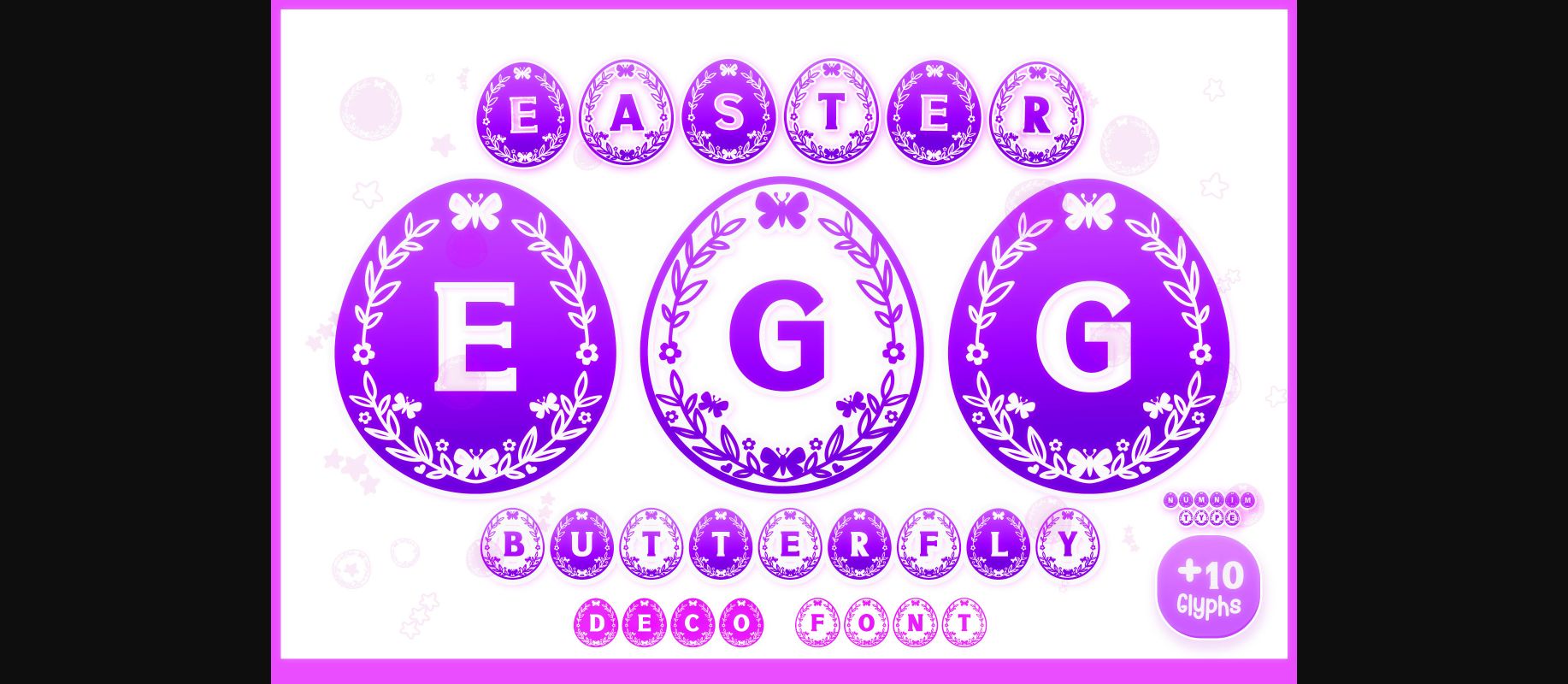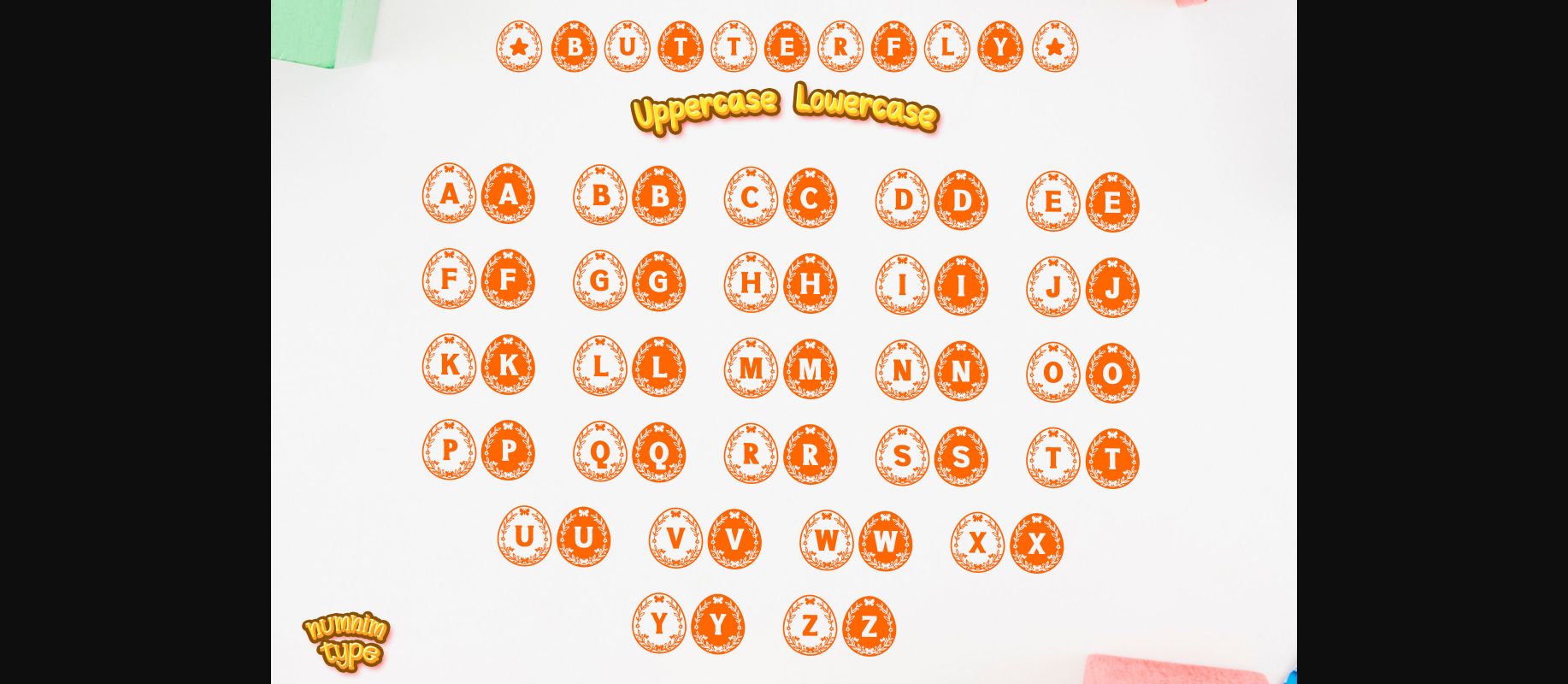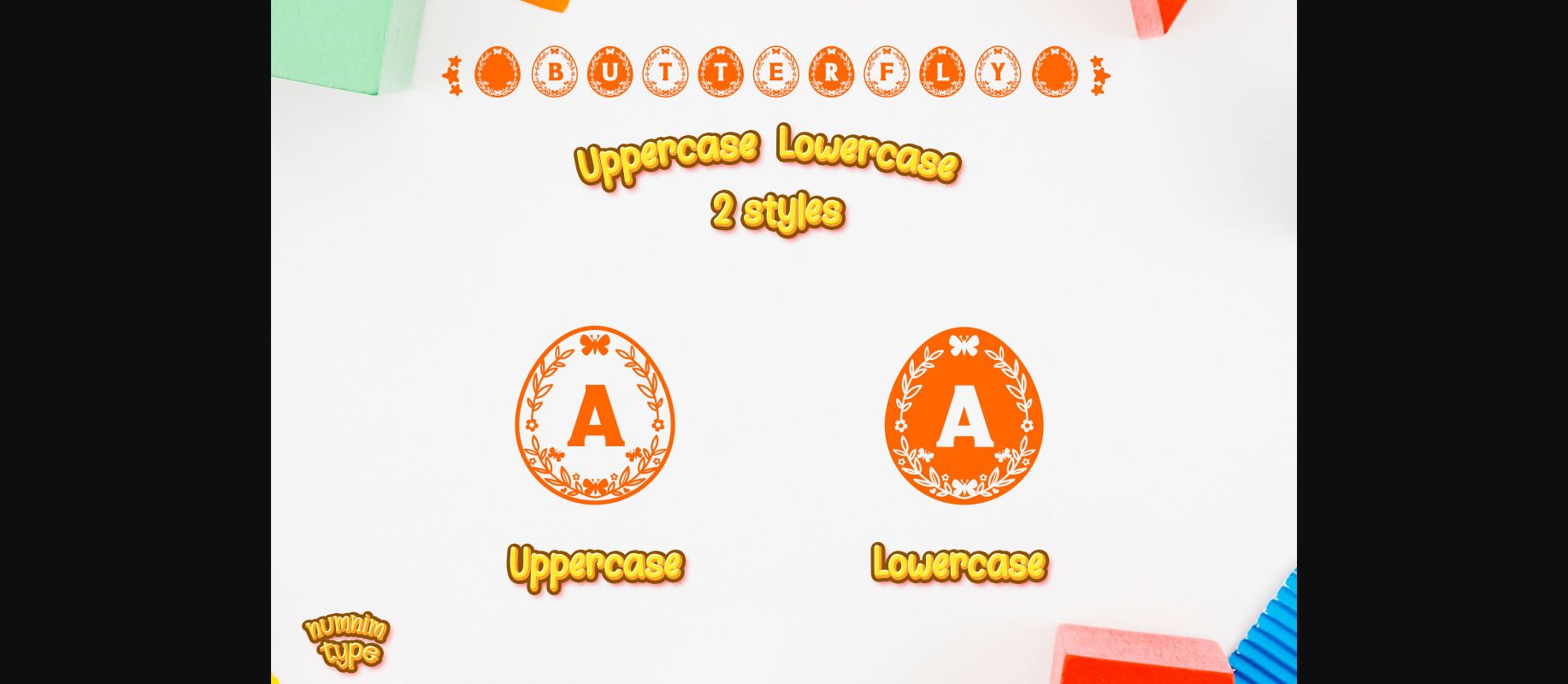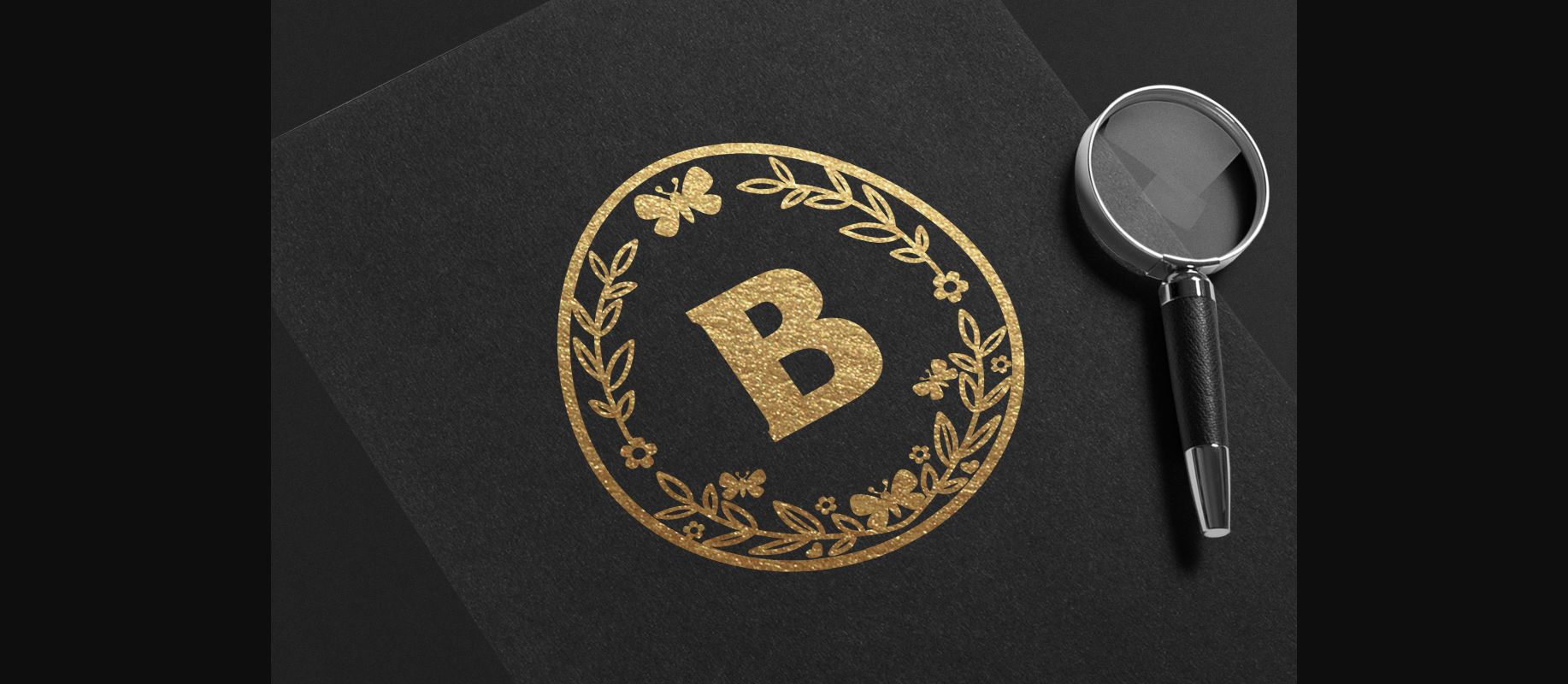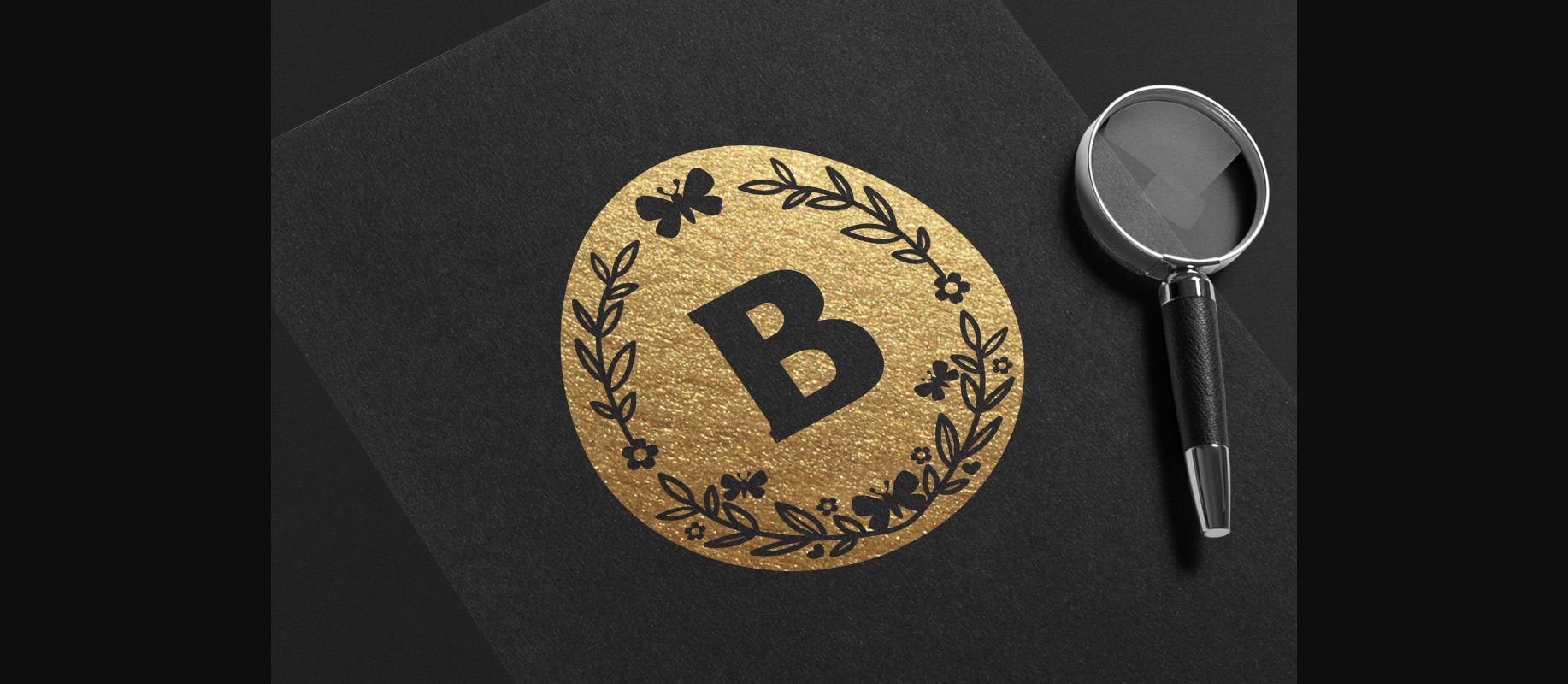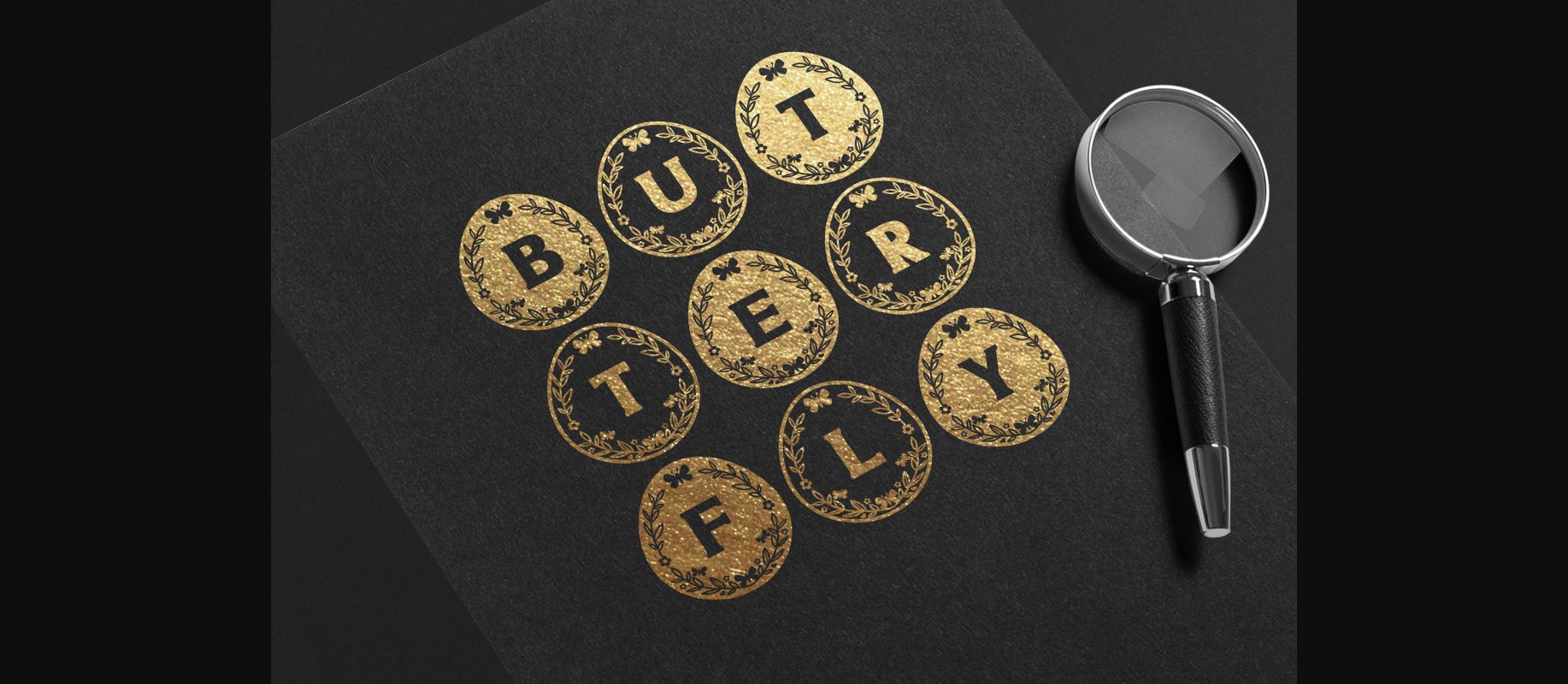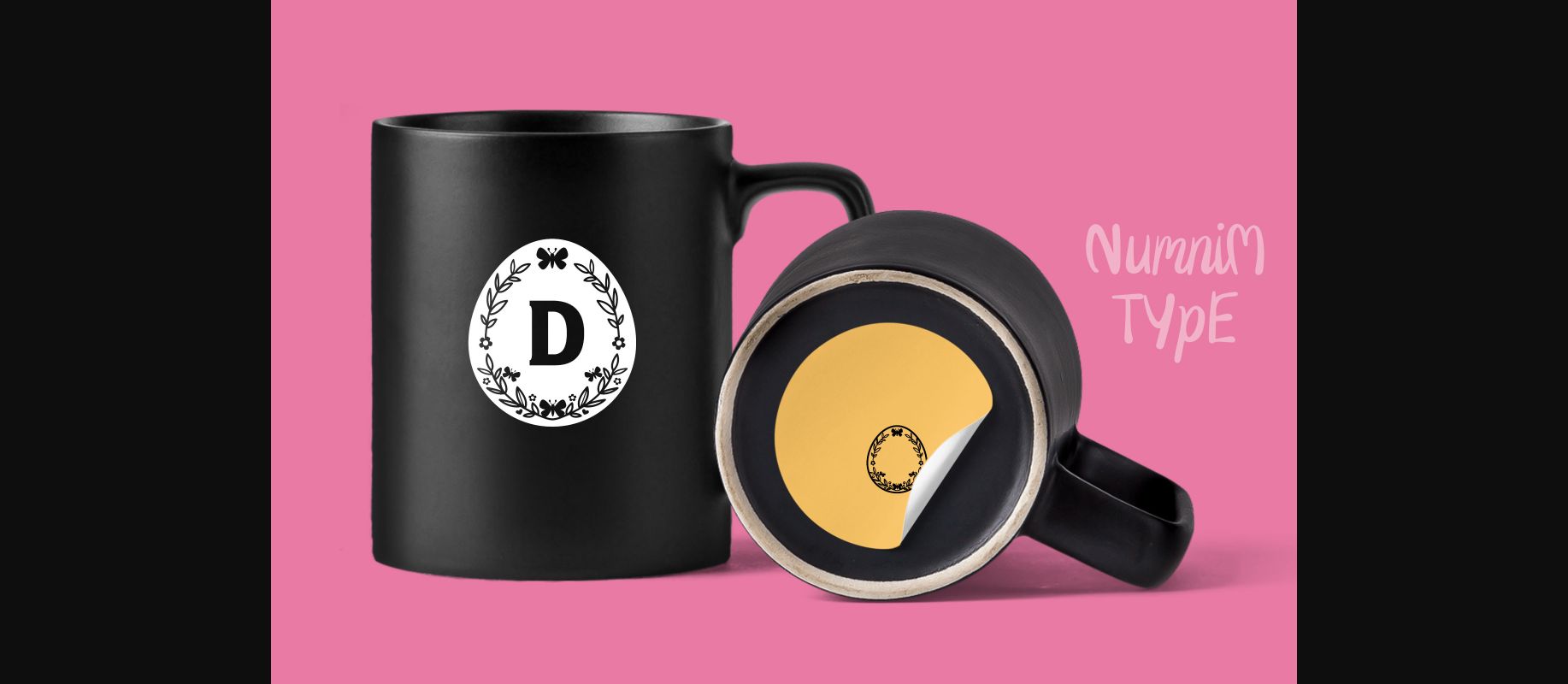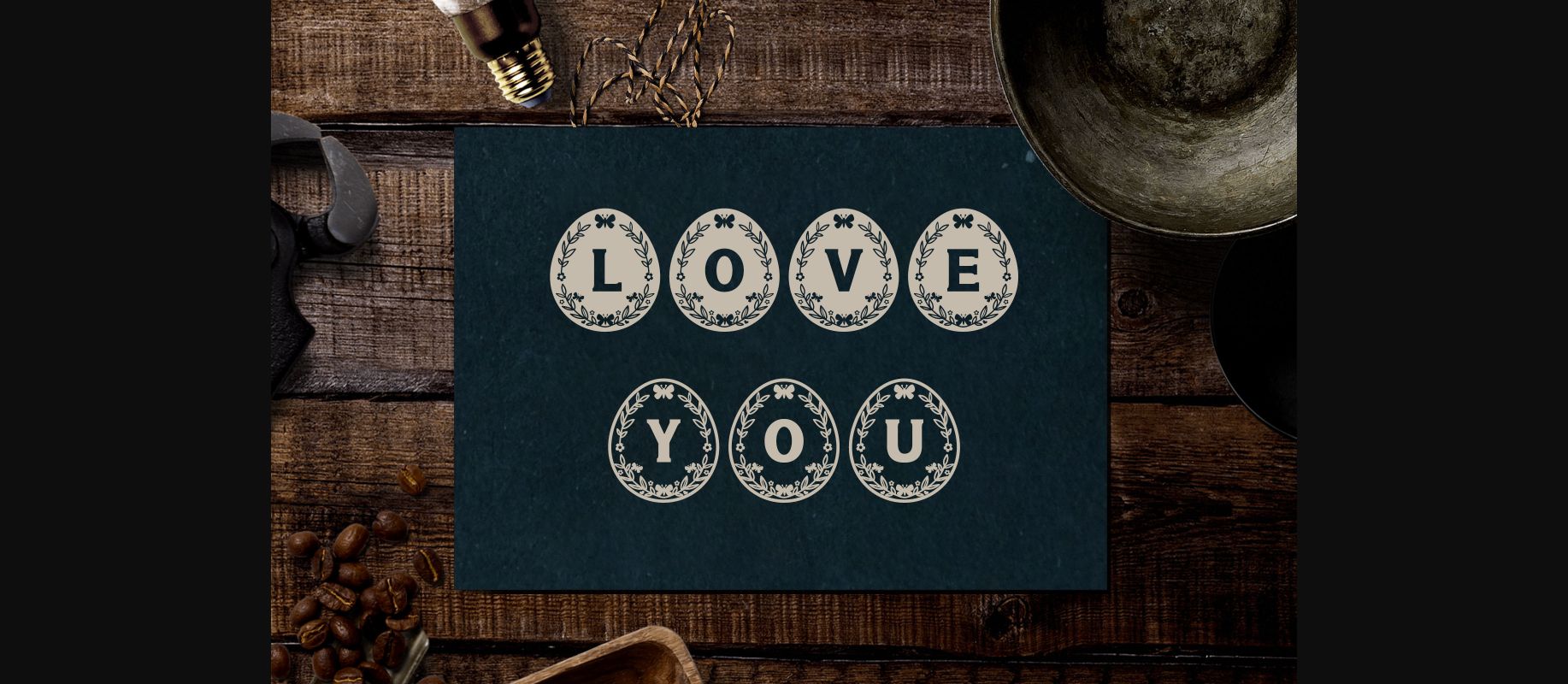
Easter Egg Butterfly Font
About Easter Egg Butterfly Font
Easter Egg Butterfly is a cool and uniquely crafted decorative font. Its fun and playful characters make it the perfect font for stickers, mugs, t-shirts, ornaments, Easter Event cards, event invitations, and more!